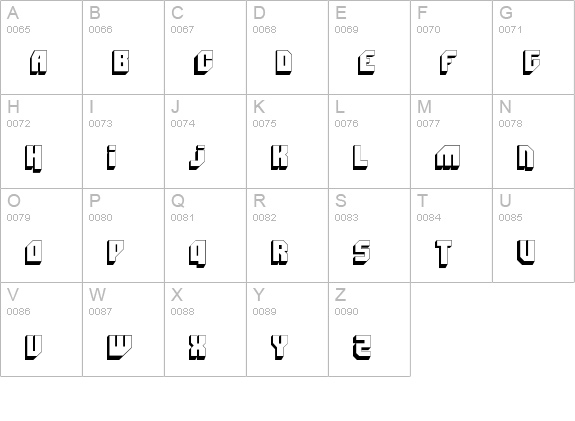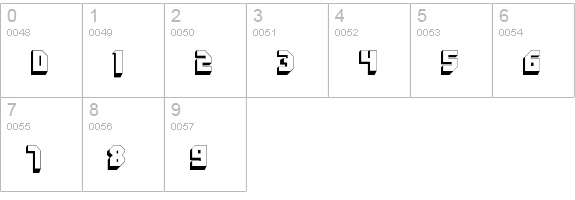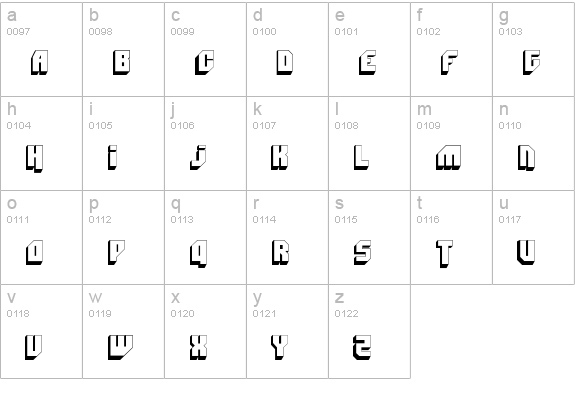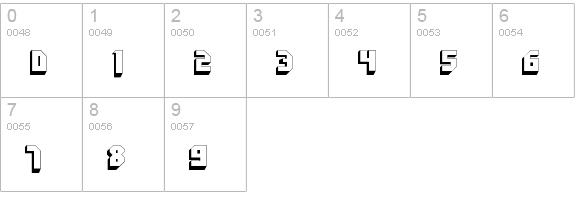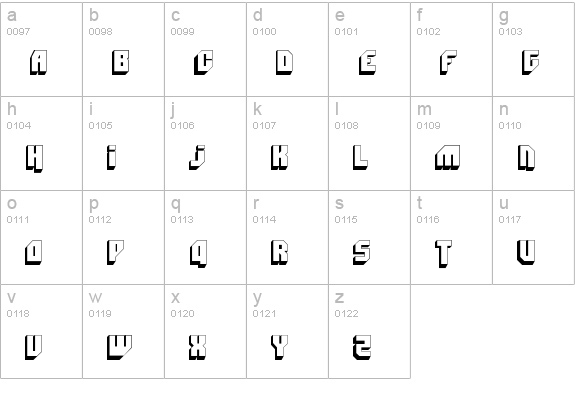
Bad Mofo Font Details
Introducing the Bad Mofo font, a powerful and edgy typeface that exudes confidence and attitude. This font is perfect for those who want to make a bold statement with their designs. With its sharp lines and strong presence, Bad Mofo demands attention and commands respect. But what sets Bad Mofo apart from other fonts? It's the fact that it is not only stunning but also free. Yes, you heard that right. You can freely download the Bad Mofo font and add it to your font collection without any cost. With Bad Mofo, you'll have endless possibilities to create eye-catching designs that leave a lasting impression. Whether you're creating posters, logos, or social media graphics, this font will add an extra dose of style and badassery to your projects. To get your hands on the Bad Mofo font, simply head over to FontsMarket.com, where it is available for free download. FontsMarket.com is a reliable and trusted source for high-quality fonts, ensuring that you can enjoy the Bad Mofo font without any hassle. So why wait? Unleash your creativity and make a statement with the Bad Mofo font. Download it now from FontsMarket.com and let your designs speak volumes.